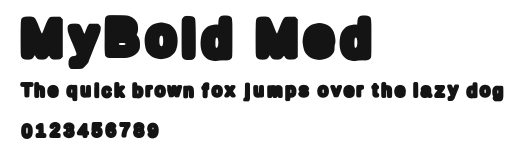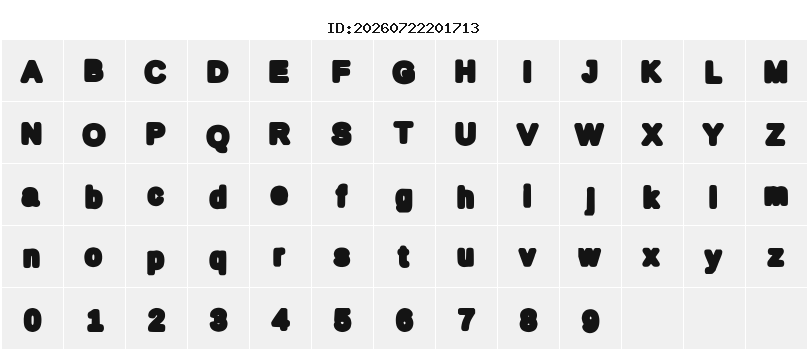
• Font Name: MyBold Med
• Full Font Name: MyBold Medium
• Designer: socialh
About MyBold Med.ttf
MyBold Med.ttf is a modern, elegant sans-serif font designed for ultimate readability and visual harmony. Perfect for branding, headlines, web design, and print materials.